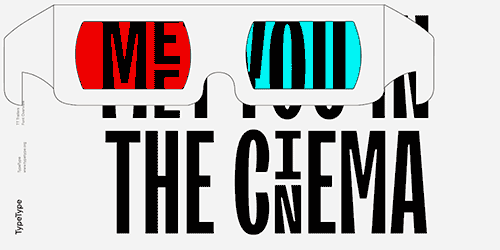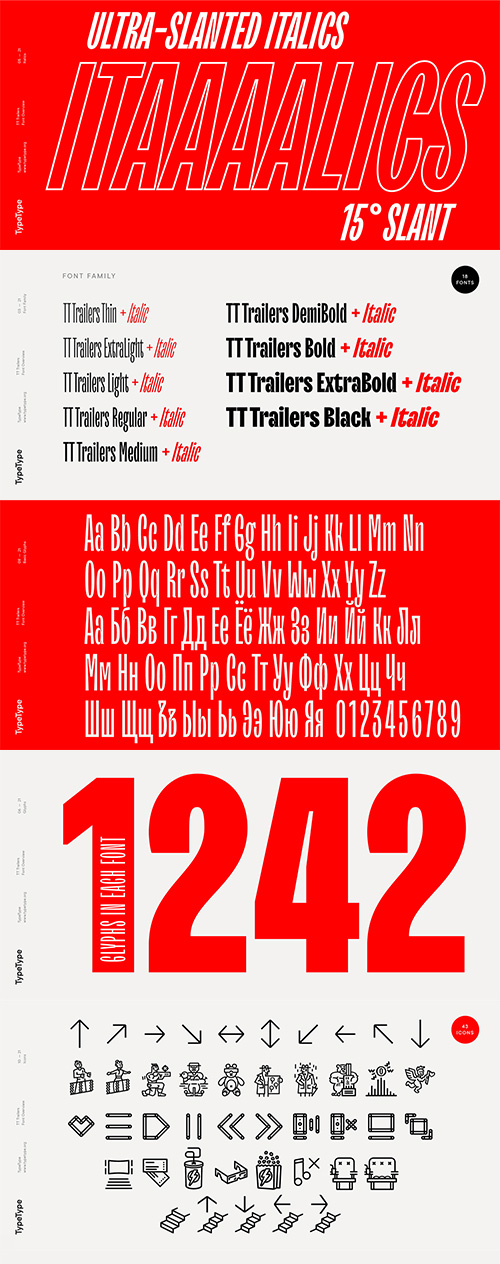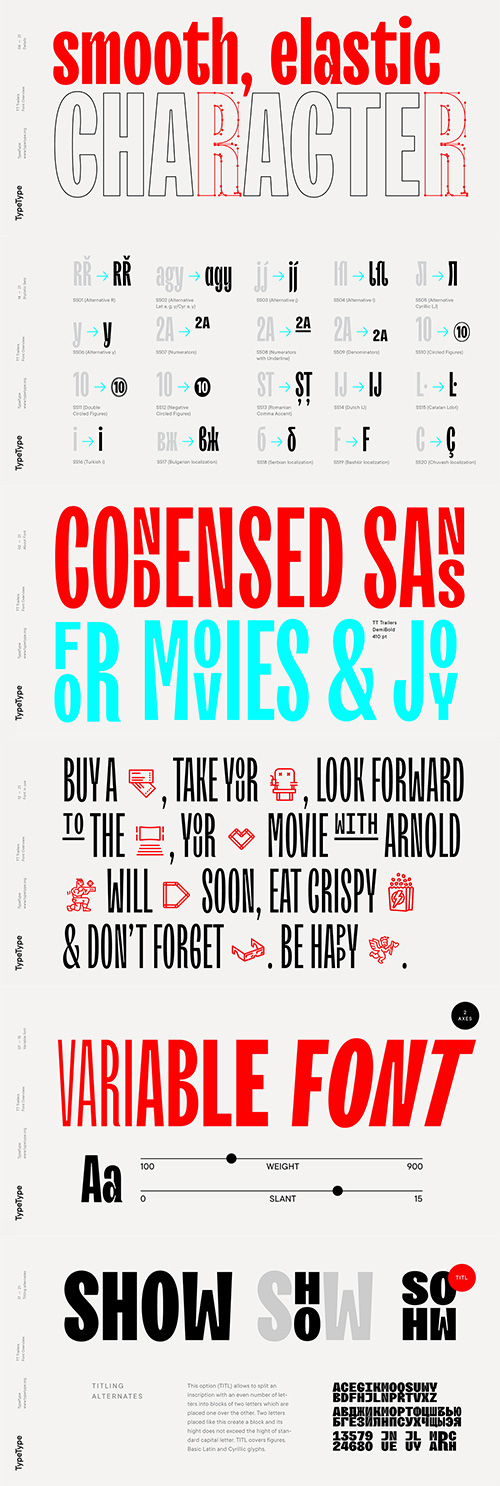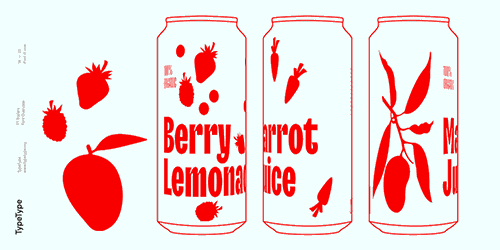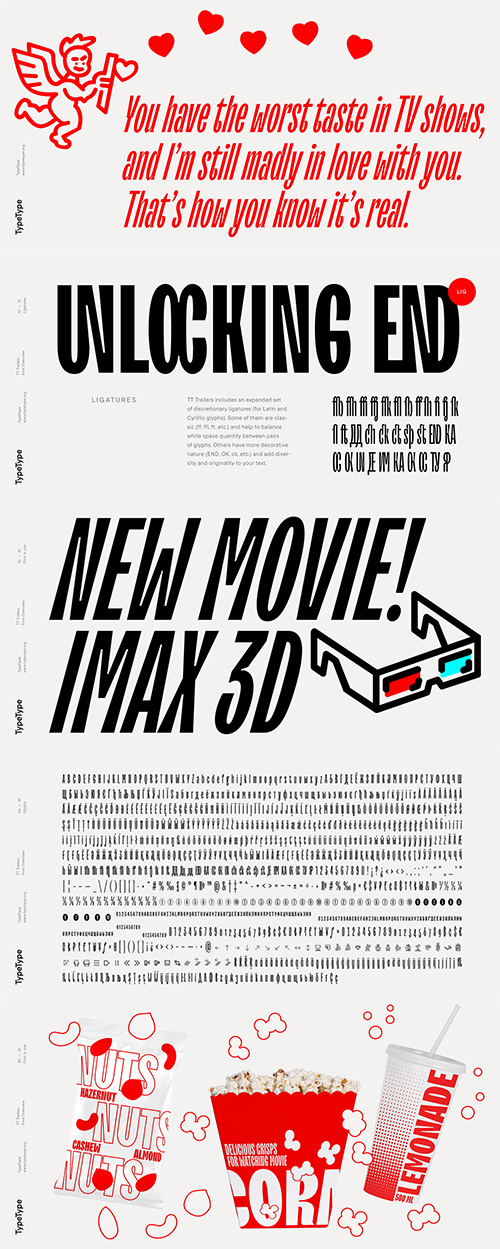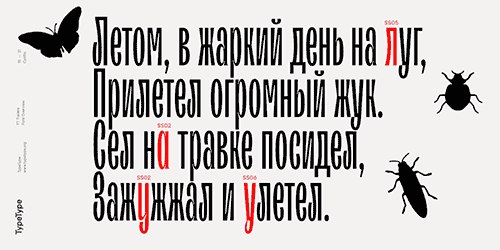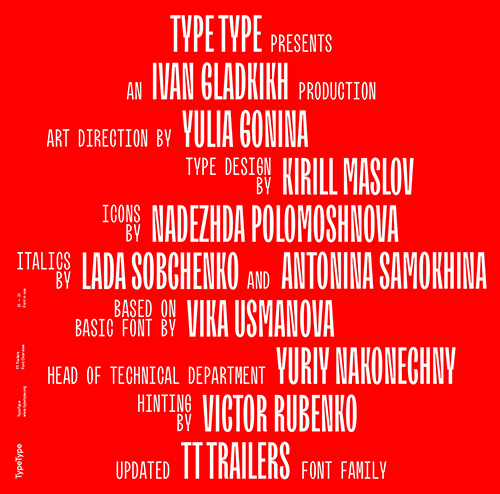
Introducing the updated TT Trailers:
TypeType’s attention-grabbing font, born to be a screen sensation!
- TT Trailers is a stylish and expressive display sans serif. This font is easily recognizable by its unusual graphics: the design of each glyph in the font is original and custom-made, and the forms are experimental. Some of the typeface’s distinctive features include ultra-narrow proportions, unusual junctions, closed apertures, and terminals slightly bent inward. Italics in TT Trailers are as eccentric as roman font styles. The 15-degree slant angle looks absolutely well-balanced and complements the typeface’s character.
- TT Trailers was initially designed to be an ideal match for the film industry. It integrates seamlessly into poster designs and works amazingly well in credits. Yet, in practice, the application scope of the typeface extends far beyond that.
- The variable font included in TT Trailers expands its capabilities even further. It has two axes of variation: weight and slant. Numerous OpenType features allow designers to adjust the typeface to suit a wide variety of purposes. The font also includes a custom-made set of icons inspired by the film industry—another great addition for designers.
- The updated version of TT Trailers boasts a larger character set, enhanced technical aspects, and improved contours. In addition, we implemented characters of the extended Latin and Cyrillic alphabets, new alternate glyph versions, and extra sets of figures.
- TT Trailers is tailored for credits, posters, websites, and printed materials. The typeface will elevate the designs of magazine covers, add charm to signs of restaurants and cafes, and become an aesthetic element on posters.
- 19 font styles: 9 roman, 9 italic, and a variable font.
- 1242 glyphs in each font style;
- 42 OpenType features;
Meet the new TT Trailers!
- The first version of TT Trailers was conceived as a font suitable for the film industry. The font harmoniously looks in posters, it is ideally suited for setting titles. However, the font has gained wide popularity among designers, and now you can find TT Trailers on the covers of magazines, on restaurant signs and on the main pages of websites.
- Since 2019 when we released the first version, the TypeType studio team has released dozens of fonts, constantly improving our skills. In 2022, we decided to look at TT Trailers again, improving and expanding the font.
- In the new TT Trailers, we expanded the character set, corrected the contours, and improved the technical content. We have added extended Latin and Cyrillic characters, new symbols, and additional sets of numbers. The number of glyphs in one style has increased from 1081 to 1242.
- The inclined styles were long-awaited. The italics in TT Trailers are as eccentric as the upright fonts. The 15-degree tilt looks absolutely harmonious, complementing the character of the font family. We added italics to the variable font, so the new font changes along two axes at once, weight and slant.
- From the technical point of view, TT Trailers has become more modern and correct, and the number of OpenType features has increased from 29 to 42. We have added new alternative versions of glyphs and created a large number of localized features.
- The font retained all the qualities thanks to which designers fell in love with it, but became even more convenient. TT Trailers in the new version is suitable for titles and posters, for websites and printed materials. The font will embellish in restaurant and cafe signs and look beautiful in posters.